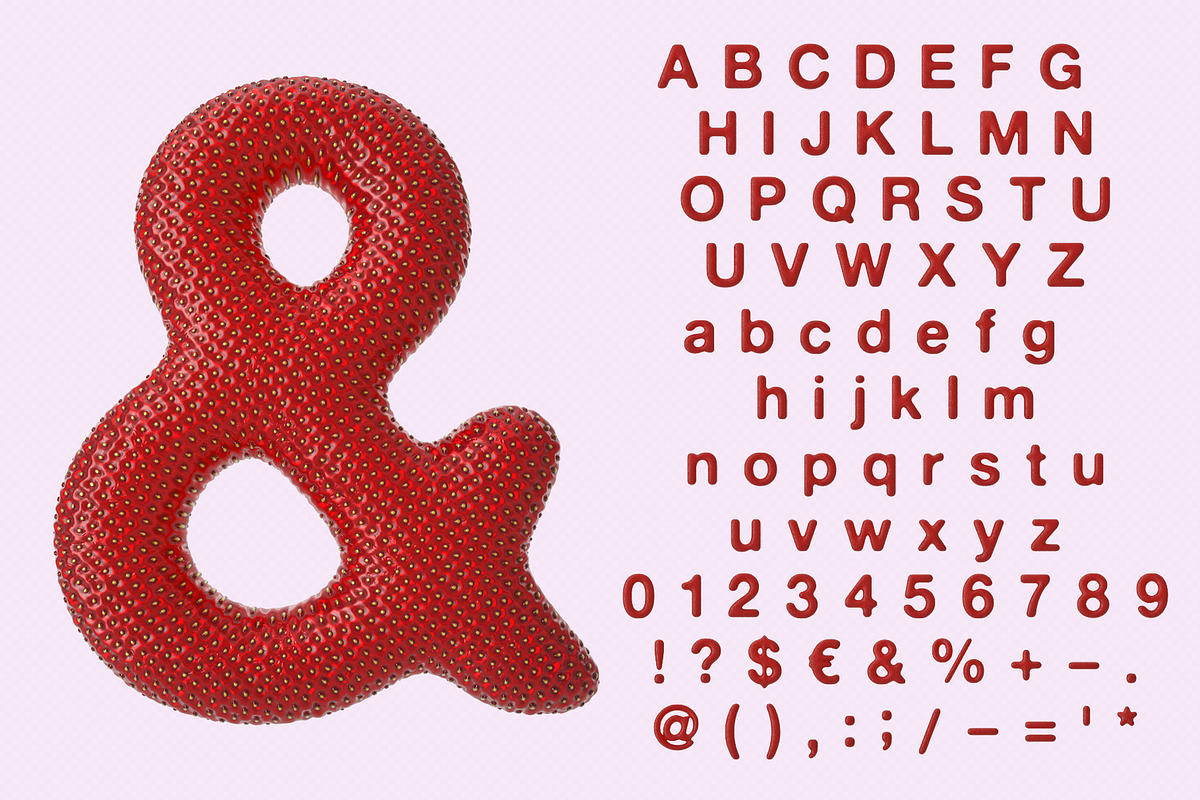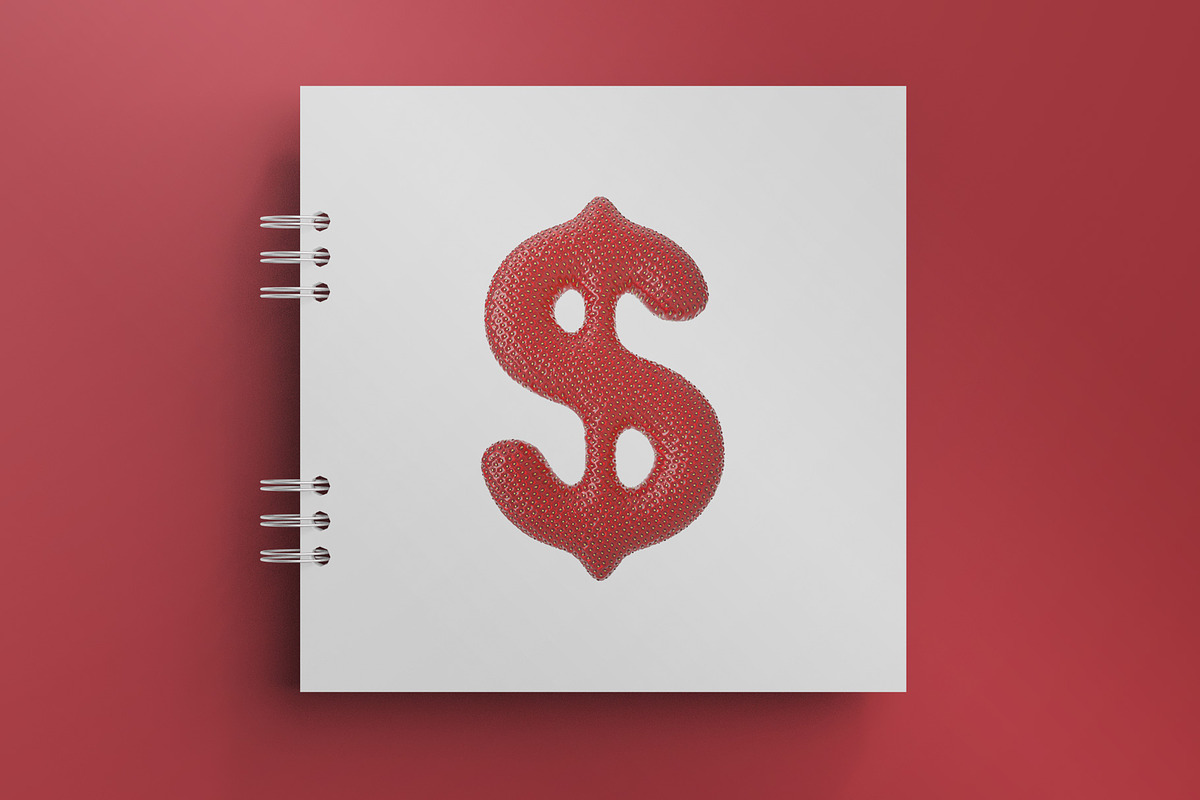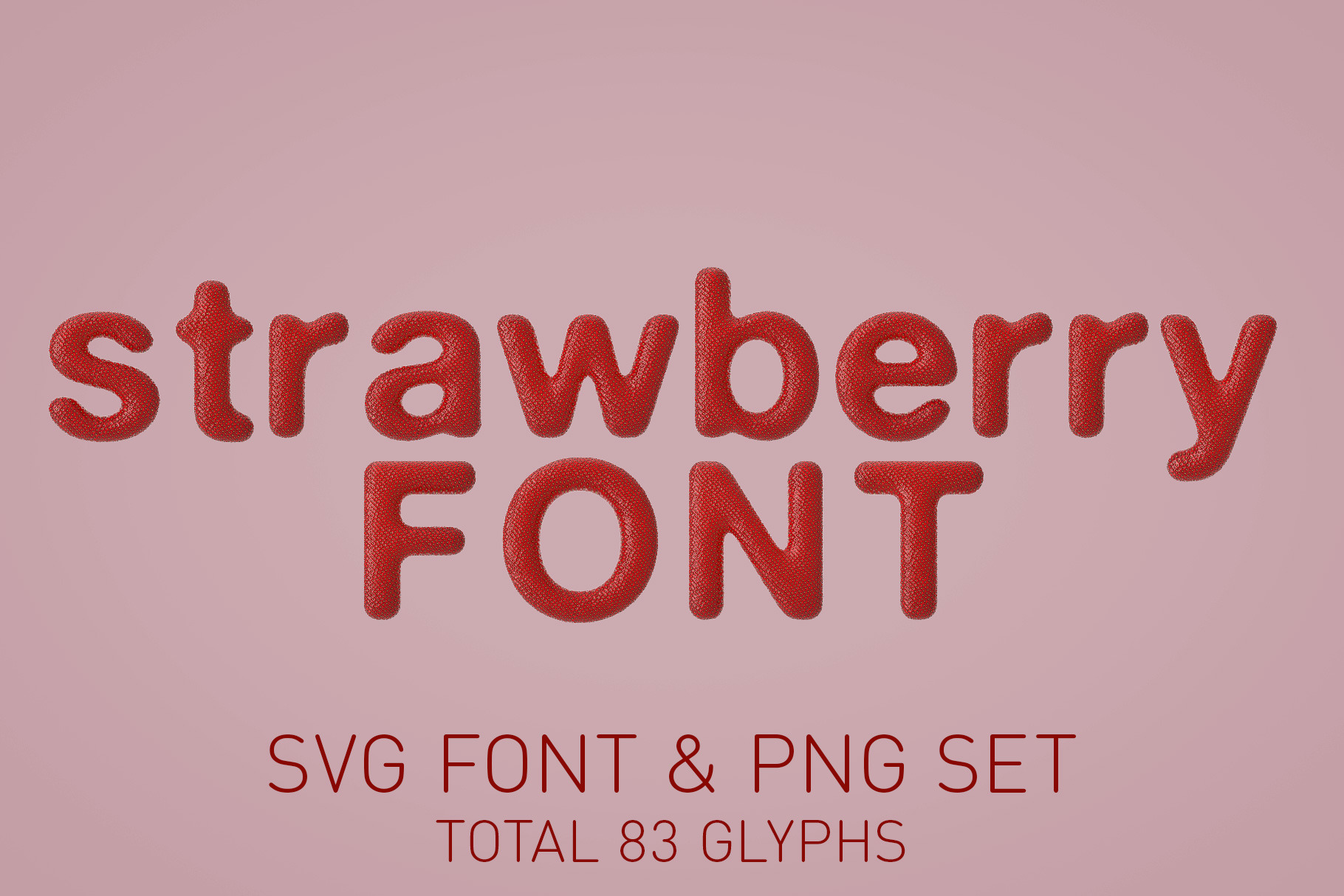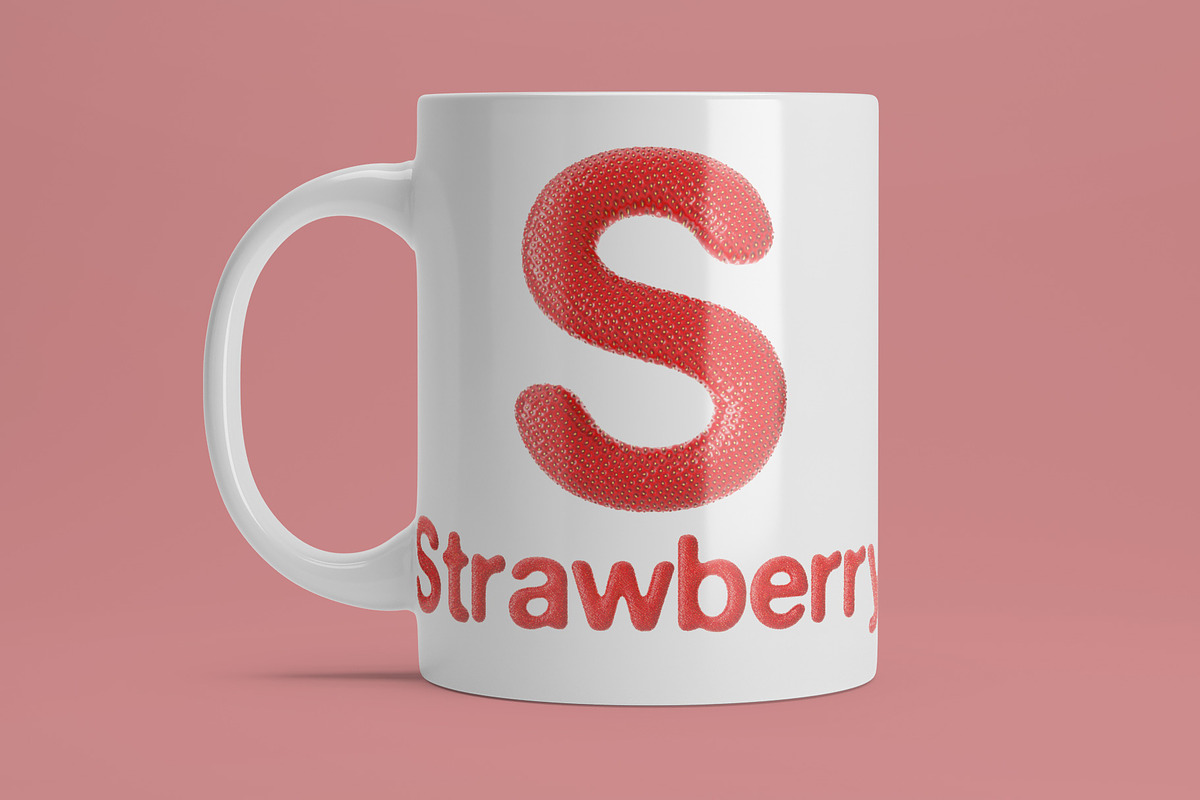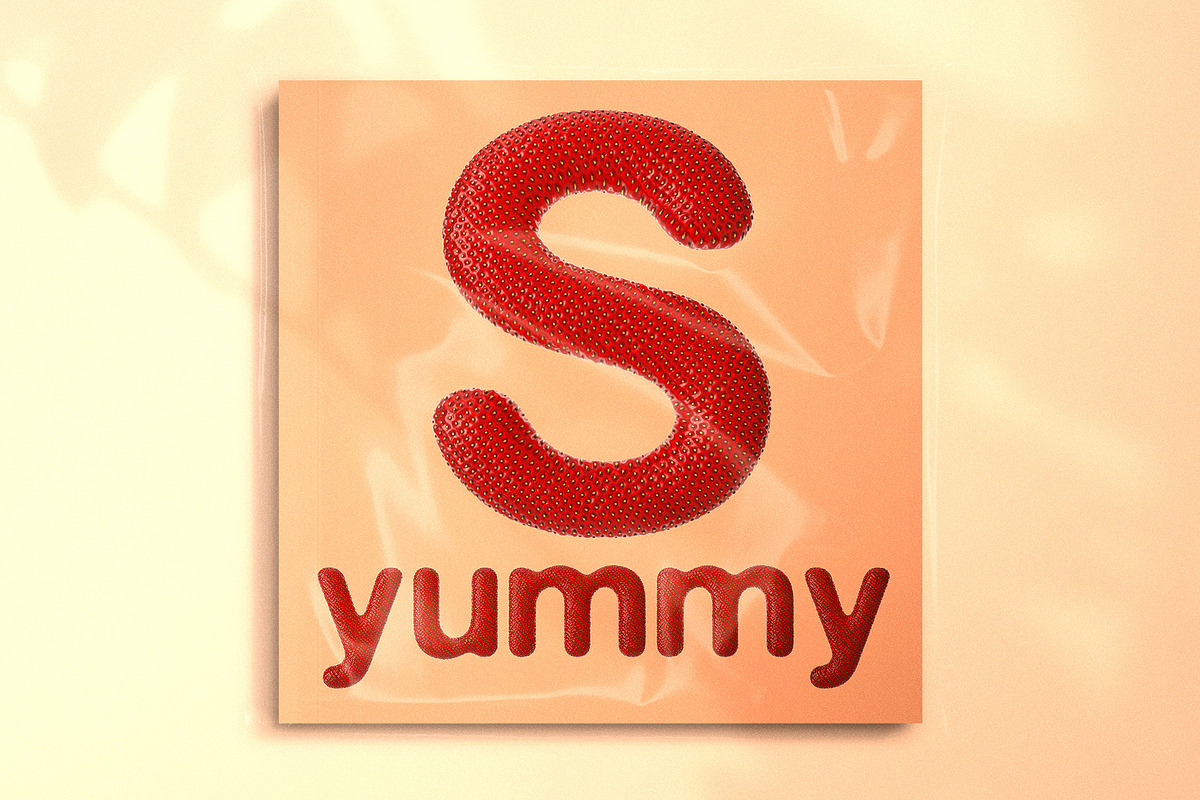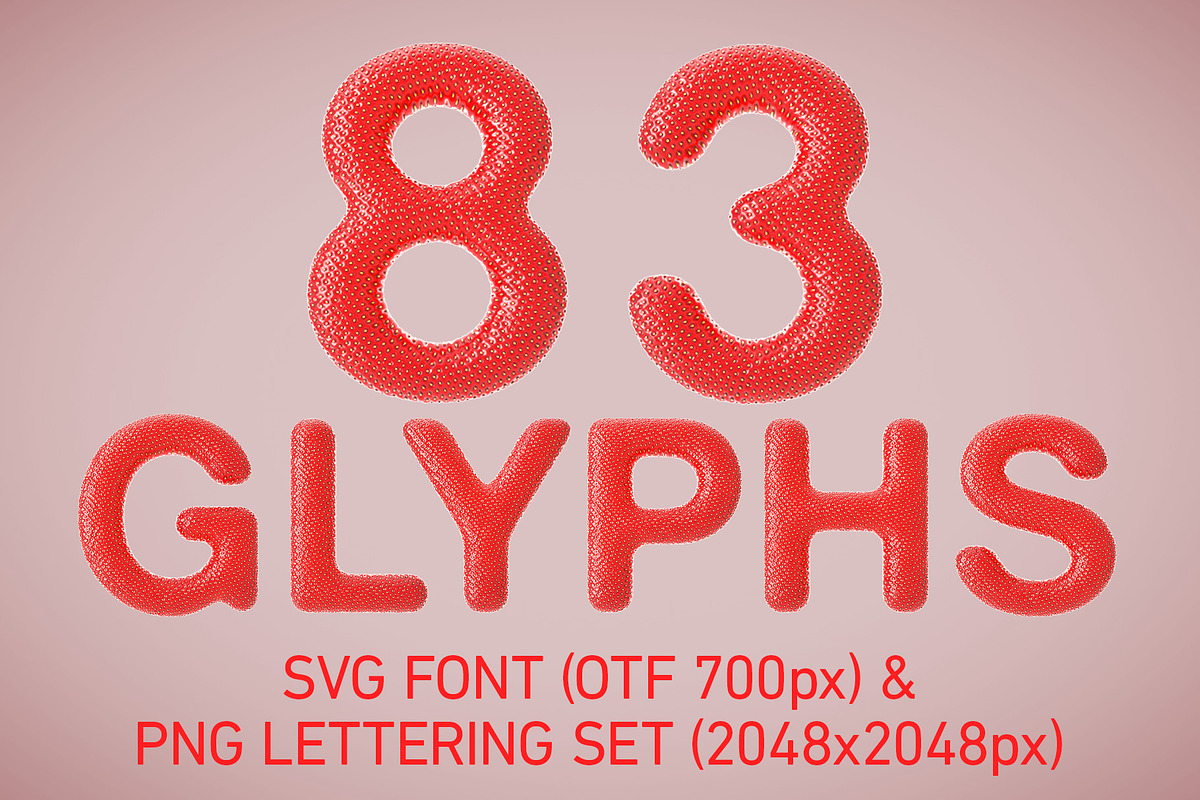
Strawberry Bitmap Font & PNGs
Introducing the stunning and vibrant Strawberry Color Bitmap SVG Font and transparent PNGs, a unique and creative font that will elevate your design projects to the next level. This font features 83 beautifully designed glyphs in a high-quality 2048x2048 pixel resolution transparent PNG format, allowing you to seamlessly integrate them into your designs.
The Strawberry Color Bitmap SVG Font is perfect for a variety of design projects, including posters, flyers, social media graphics, invitations, and more. The font's bold and colorful design is ideal for grabbing the viewer's attention and making a statement.
Whether you're a graphic designer, artist, or simply looking to add a unique touch to your designs, the Strawberry Color Bitmap SVG Font is the perfect choice.